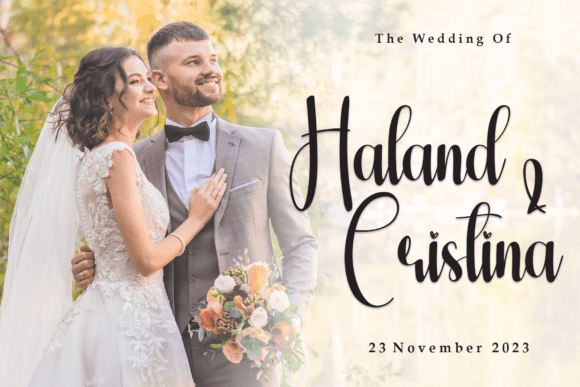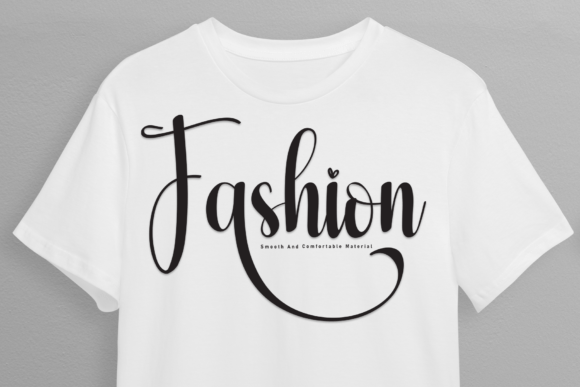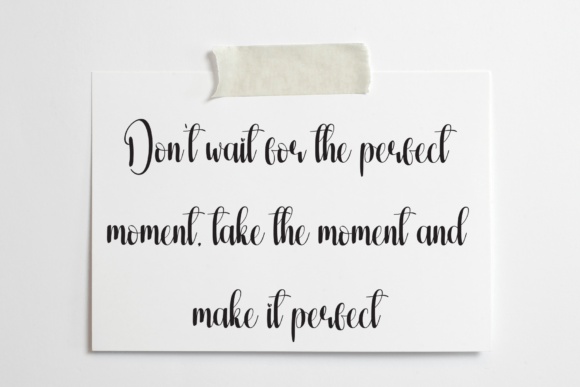
Introduction to Christmas Outdoor Font
As a designer, there’s nothing quite like the rush of creativity that comes with brainstorming ideas for a new project. You’re sipping hot cocoa, surrounded by twinkling lights, and suddenly, you’re inspired by the magic of the holiday season. Your mind starts racing with visions of festive designs, and you know exactly what you need – a font that captures the essence of Christmas. That’s where the enchanting Christmas Outdoor Font comes in, a high-quality, handwritten script font that’s guaranteed to add a touch of romance to your next creative project.
Whether you’re working on a greeting card, a holiday brochure, or a social media campaign, the Christmas Outdoor Font is the perfect design resource to elevate your work. With its transparent background, you can easily layer it over images or use it as a standalone element, making it a versatile addition to any project. And the best part? You can download it for free, making it an accessible and valuable asset for designers of all levels.
Key Features of Christmas Outdoor Font
- High-quality vector design, perfect for creative projects and print materials.
- Includes a wide range of characters, including uppercase and lowercase letters, numbers, and punctuation marks.
- Unique characteristics include a festive and playful design, making it perfect for Christmas-themed projects and decorations.
Honest Review: Christmas Outdoor Font
I recently came across the Christmas Outdoor Font, and I must say it’s a great addition to any designer’s toolkit. With a free download available, I was able to quickly integrate it into my latest creative project.
One of the standout features of this font is its high quality. The design is crisp and clear, making it perfect for use in a variety of applications. Whether you’re working on a website, social media campaign, or print project, this font is sure to impress.
The font features a transparent background, which allows for seamless integration with other design elements. This level of flexibility is a major plus in my book.
Here are a few things that work well with the Christmas Outdoor Font:
- ✨ Great for use in winter-themed designs
- ✨ Versatile and can be used in a variety of applications
- ✨ High-quality design
- ✨ Transparent background for easy integration
One potential limitation of this font is that it may not be suitable for use in all types of creative projects. For example, if you’re working on a project that requires a more subtle aesthetic, this font may be too bold.
Overall, I’m impressed with the Christmas Outdoor Font and would recommend it to anyone looking for a high-quality design resource.
How to Use Christmas Outdoor Font
The Christmas Outdoor Font is a high-quality design resource perfect for your next creative project. This free download comes with a transparent background, making it easy to use in various applications.
Use the Christmas Outdoor Font in conjunction with other design elements to create a cohesive and visually appealing design. Experiment with different font sizes, colors, and arrangements to achieve the desired effect.
The Christmas Outdoor Font is perfect for holiday-themed designs, such as Christmas cards, gift tags, and social media graphics. It can also be used in other creative projects, such as party invitations, menus, and advertisements.